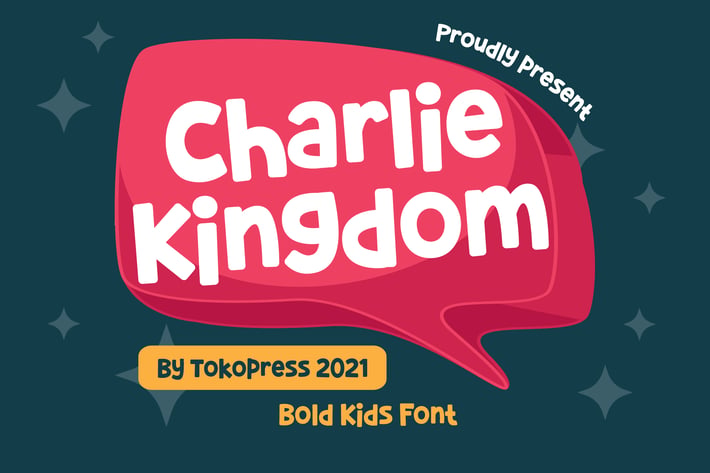
Charlie Kingdom - Kids font
Charlie Kingdom - Kids Font
Charlie Kingdom is a playful kids display font with bold letterforms, a bouncy baseline, and expressive curves—perfect for bringing youthful joy to school posters, kids’ books, and creative branding. With its rounded shapes and friendly proportion, this font feels approachable and highly readable, even at smaller sizes. Designed to spark curiosity and keep little eyes engaged, Charlie Kingdom makes any message feel cheerful and full of personality.
Whether you're designing a back-to-school campaign, creating posters for a book fair, or illustrating a children’s storybook, Charlie Kingdom brings charm and clarity to every project. Its strong presence and fun visual tone help designers craft emotionally resonant designs that are both educational and entertaining. It’s ideal for branding kids’ products, editorial layouts, educational content, and promotional materials targeting young audiences and parents alike.
- Friendly Visual Impact: Rounded terminals and strong contrast make words pop playfully.
- Kid-Focused Aesthetic: Designed to mirror the joyful energy of children's handwriting.
- Versatile for Print & Digital: Works great in posters, books, packaging, apps, and websites.
- Highly Legible: Crafted to maintain readability even at smaller sizes or busy layouts.
- Consistent Rhythm: Balanced x-height and spacing create a smooth, engaging visual flow.